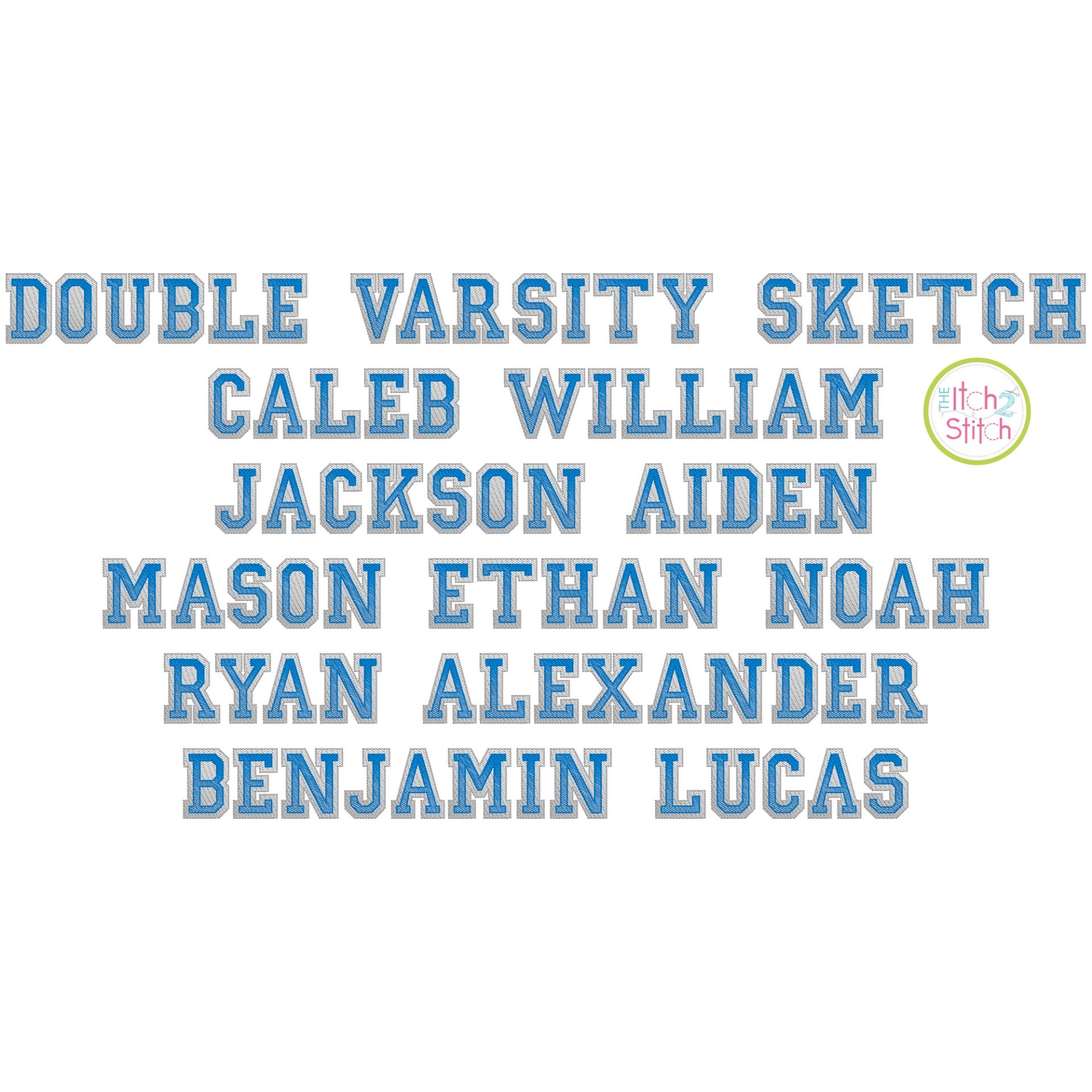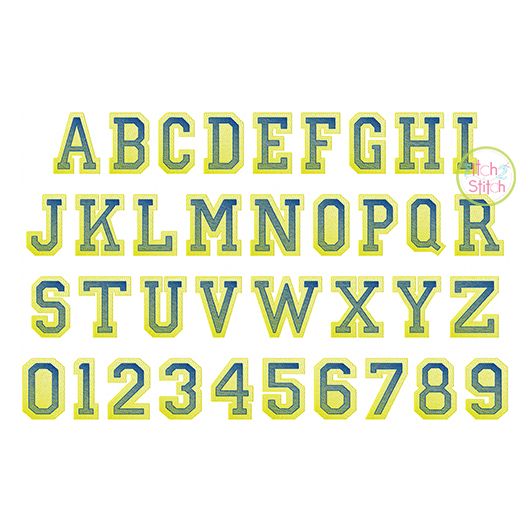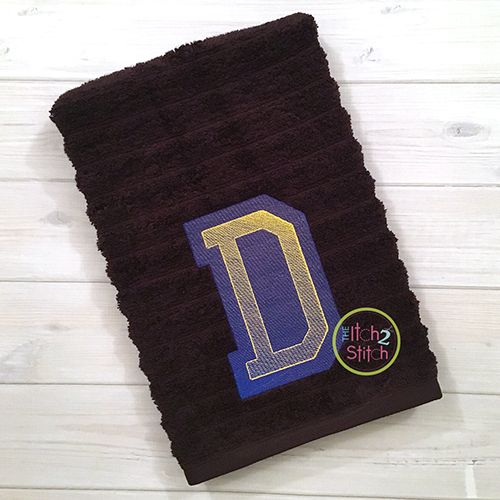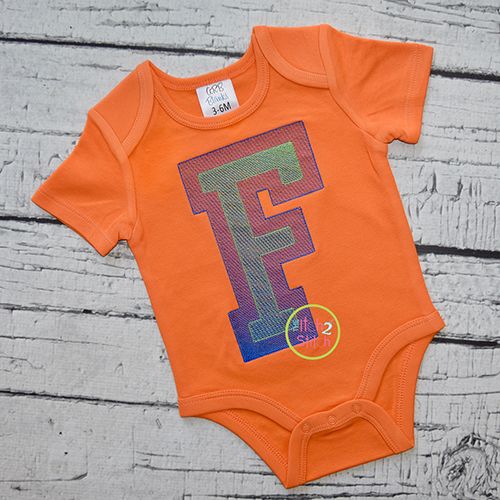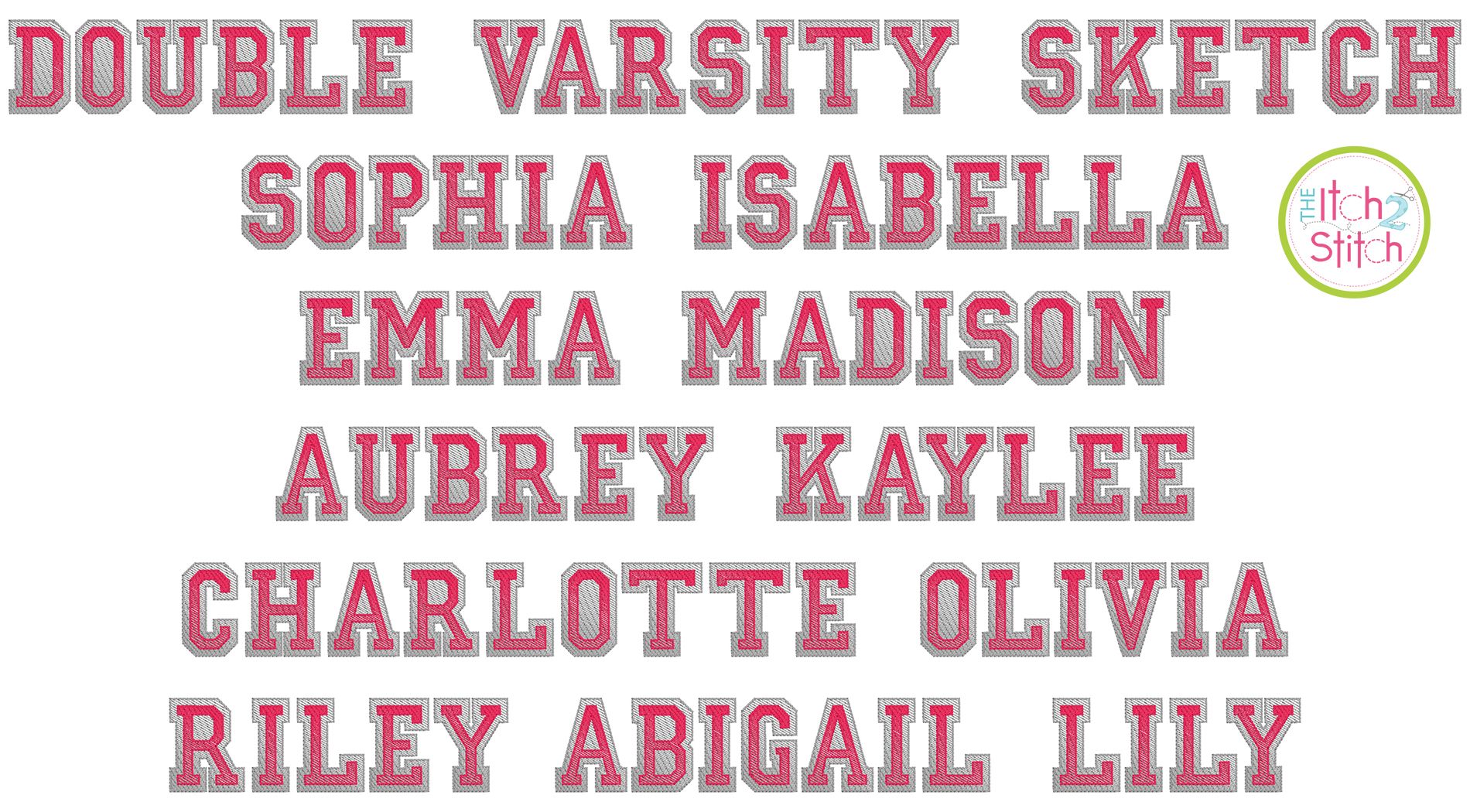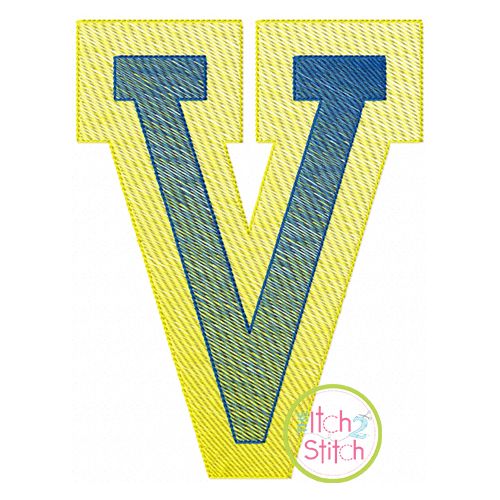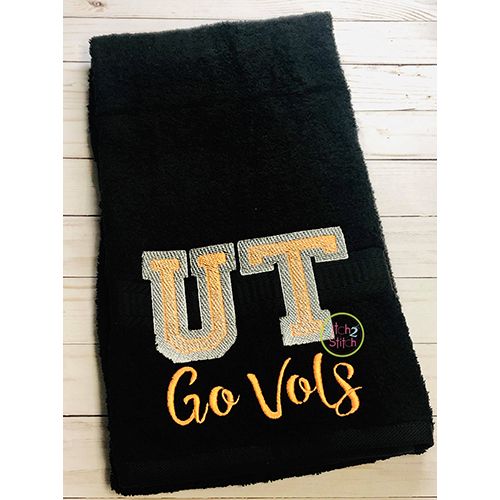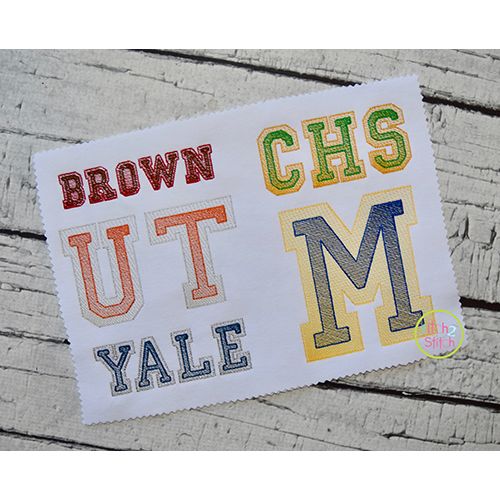
Please note this is not applique, nor is it a traditional satin or fill stitch font. The light and airy "sketch" fill pattern allows for a quick stitch out. TheĀ variable density fill settings for the overlapping sections of sketch are designed to create a blended ombre effect. The letter is finished off with a triple bean stitch outline. We do not recommend resizing this font in software.